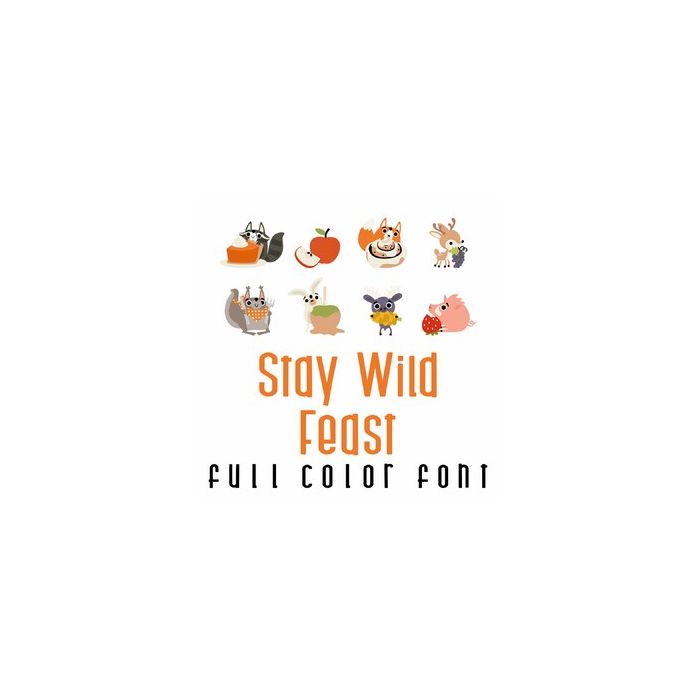
Stay Wild Feast Full Color Font
A full-color font stores svg data inside an Open Type font file. This font will look black if not used in a program like Silhouette Studio which is compatible. Images can be pulled apart with some vector programs like Illustrator and cut with your cutting machine. This fun full color doodlebat font features 26 adorable forest animals ready for Fall. Perfect for cards, crafts, gifts, decor, scrap book pages, planner stickers and more!